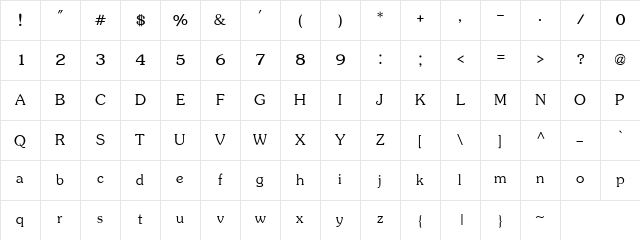
JasmineUPC Regular
Complete JasmineUPC Regular glyph index. Displaying only characters natively supported by JasmineUPC Regular font.
Design Context for JasmineUPC
JasmineUPC is a composed and adaptable typeface that performs quietly and consistently across a wide range of design contexts.